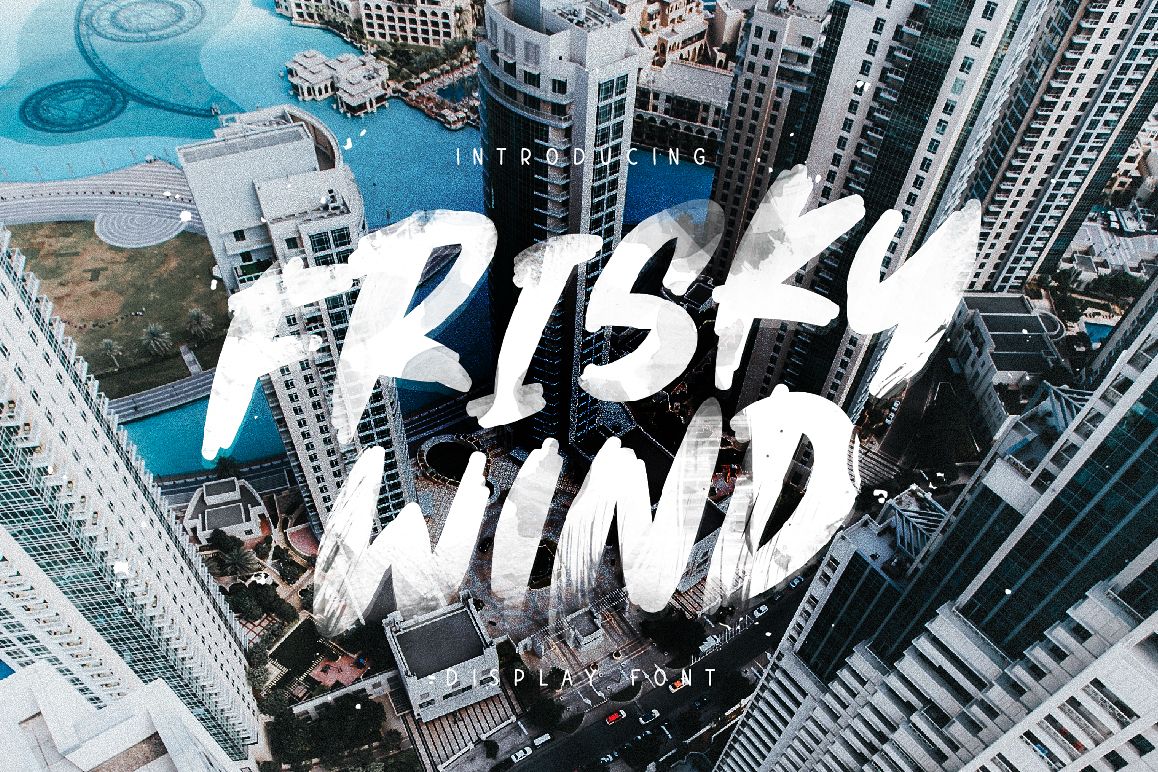
Frisky Wind
frisky wind
Frisky Wind is a brush font. It comes with all caps uppercase and lowercase characters, large set of punctuation glyphs, numerals, cyrillic characters and multilingual support. Ideal for logos, product packaging, t-shirt, handwritten quotes and etc.
Frisky Wind